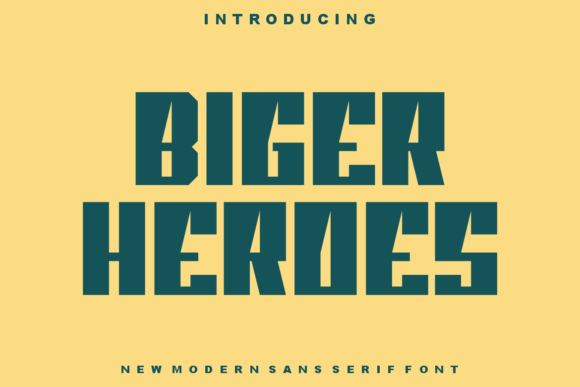
The Ultimate Display Font: Biger Heroes
An Honest Review of Biger Heroes
• ✨ Bold and Authentic: Biger Heroes has a confident, authentic feel that’s perfect for making a statement.
• ✅ Versatile: This font suits a wide range of branding projects, from logos and t-shirts to posters and packaging.
• 🔥 Attention-Grabbing: The bold design ensures your text won’t go unnoticed, making it ideal for headlines, titles, and promotional materials.
While Biger Heroes is an excellent font, there are a few minor considerations to keep in mind:
• ⚠️ Legibility at Small Sizes: As with many bold fonts, legibility may suffer at very small sizes. It’s best used at larger sizes where its impact can shine.
• 🤔 Limited Use in Body Text: Due to its bold nature, Biger Heroes isn’t ideal for lengthy body text. It’s best reserved for headings, titles, and emphasis.
A Practical Guide to Using Biger Heroes
4. Experiment with the font’s OpenType features, such as stylistic alternates, to add variety to your text.
4. Explore the font’s glyphs and OpenType features to add depth and character to your designs.
The Backstory Behind Biger Heroes
Biger Heroes was designed with the modern brand in mind. Its creator aimed to produce a font that was not only bold and eye-catching but also versatile and authentic. The result is a font that works well across various mediums, from digital platforms to print materials.
Q: What makes Biger Heroes unique?
A: Biger Heroes stands out due to its bold, authentic design and versatility across different branding projects.
Q: Is Biger Heroes suitable for body text?
A: Due to its bold nature, Biger Heroes is best used for headings and titles. For body text, consider a font with better legibility at smaller sizes.